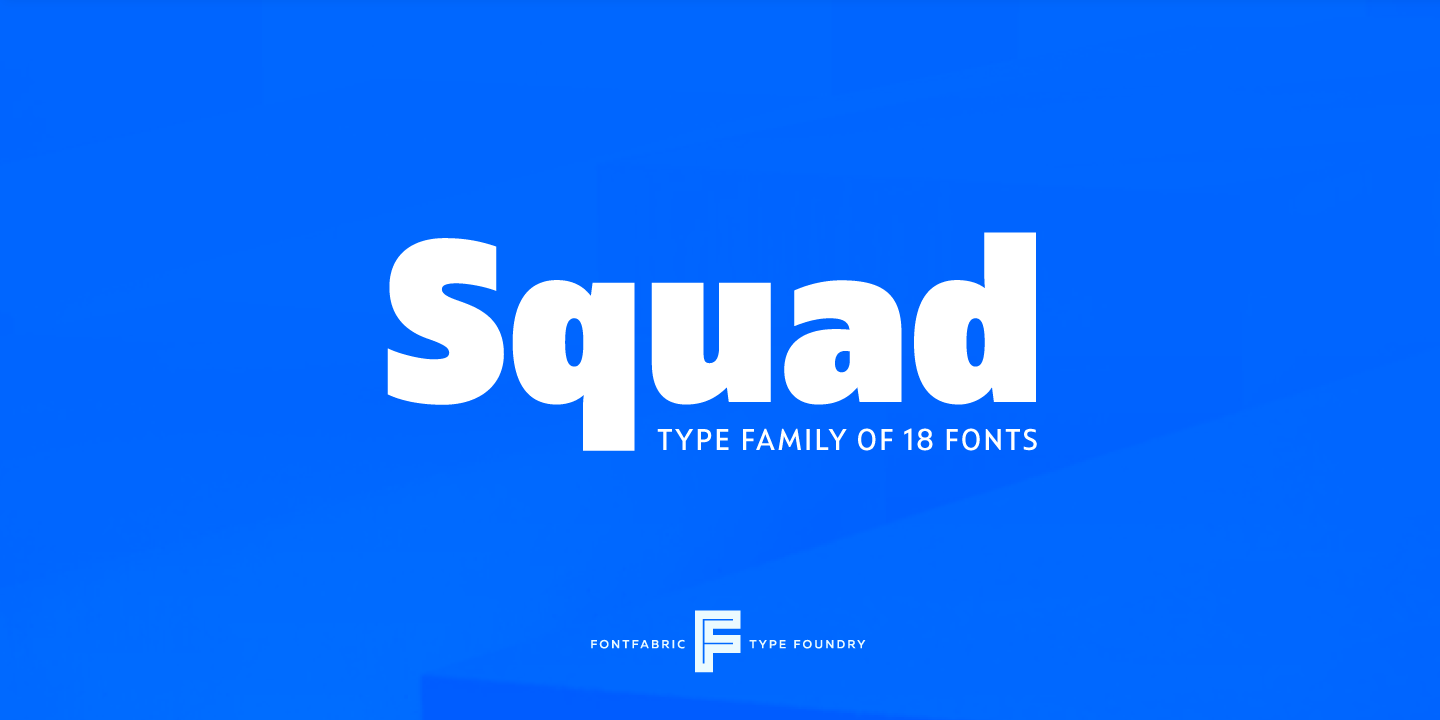
Squad Font is perfect for team sports branding, gaming clan identities, military unit communications, tactical gear marketing, group fitness campaigns, brotherhood organization logos, esports team designs, and collaborative project presentations. This powerful typeface excels in applications requiring team unity and collective strength that captures the essence of group solidarity and tactical coordination through bold visual character and commanding team presence.
What makes Squad Font exciting is its commanding team presence that perfectly captures the essence of unity and collective strength through boldly structured letterforms designed for maximum group impact. The font features robust character construction with tactical precision and team-focused proportions that instantly conveys themes of cooperation, strength, and unified action perfect for organizations requiring team credibility and collective brand positioning.
The Squad Font family includes bold team weights and tactical variations with group-focused styling elements, offering designers comprehensive tools for creating powerful team compositions. The family provides consistent unity aesthetic with varying strength levels for versatile team communications and collaborative branding projects requiring genuine squad character and tactical team appeal.
The powerfully crafted letterforms of Squad Font ensure maximum team impact while maintaining tactical authenticity and squad credibility, making it suitable for both large team displays and detailed tactical communications. This commanding typeface combines team heritage with modern usability standards for outstanding performance in contemporary design projects requiring genuine squad character and unified tactical presence.